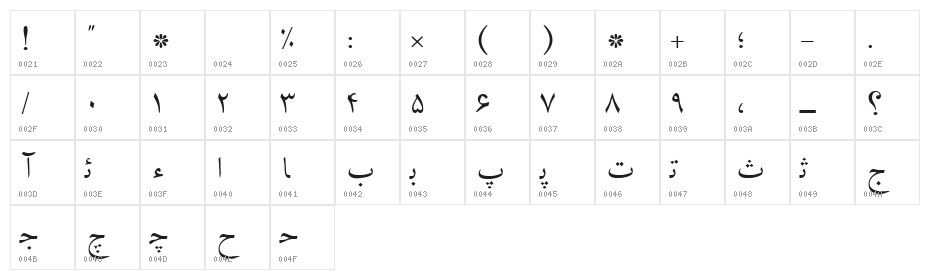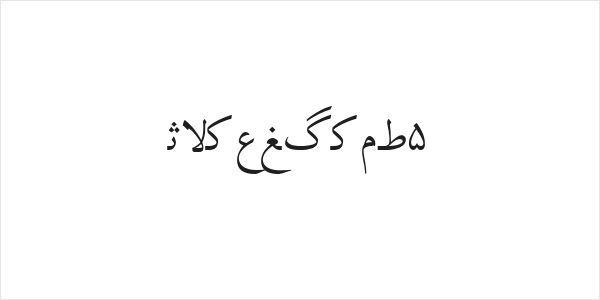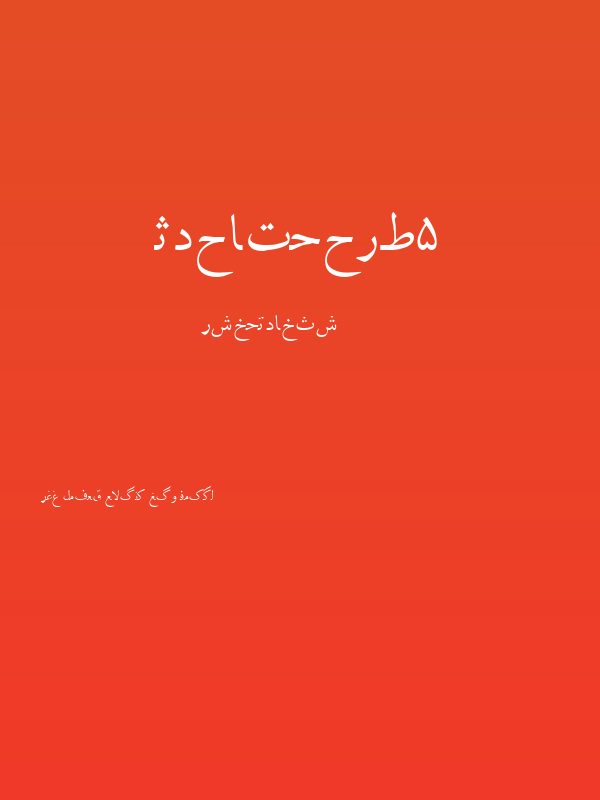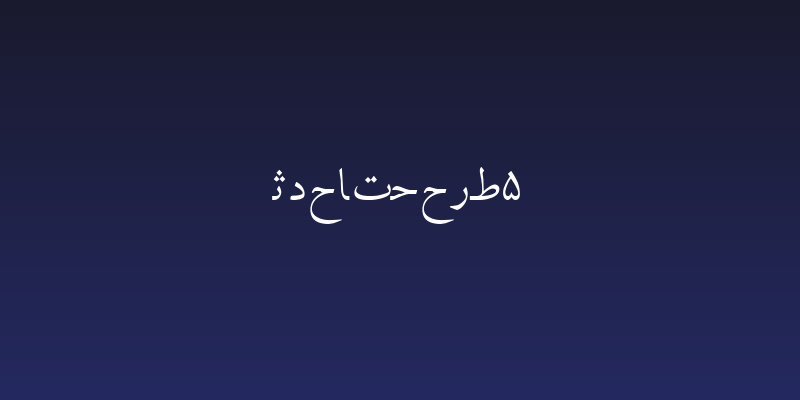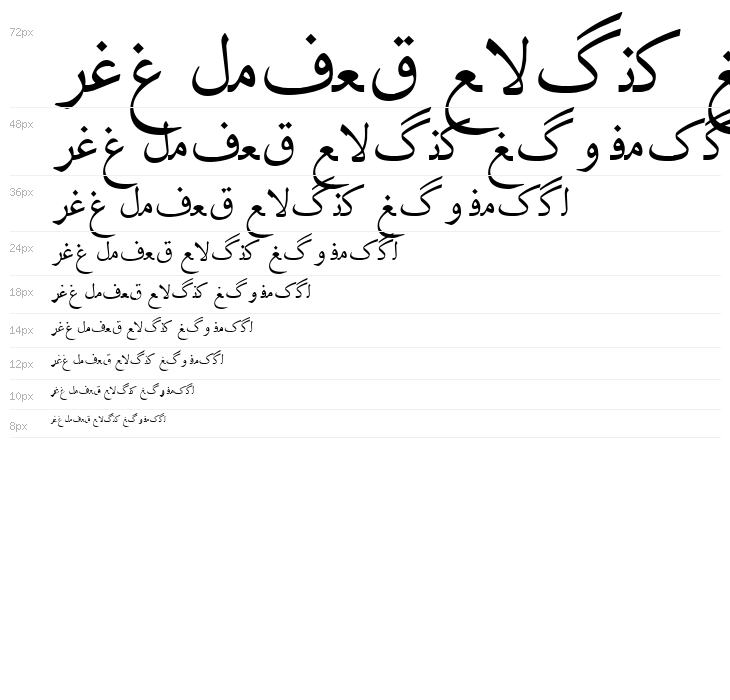
Irnafont_5 Font
Irnafont_5 Description
This font features a distinct and elegant style with a calligraphic influence, characterized by smooth curves and flowing lines. The letters exhibit a harmonious balance between thick and thin strokes, giving it a sophisticated and refined appearance. The font maintains a consistent rhythm, making it visually appealing and easy to read. The numerals and special characters are designed to complement the overall aesthetic, ensuring a cohesive look across all elements. This font is versatile, suitable for both formal and creative applications, and can add a touch of elegance to any project.
| Use Case | Headlines, Invitations, Artistic projects |
| Proposed Projects | Ideal for wedding invitations, formal documents, branding, and artistic projects. |